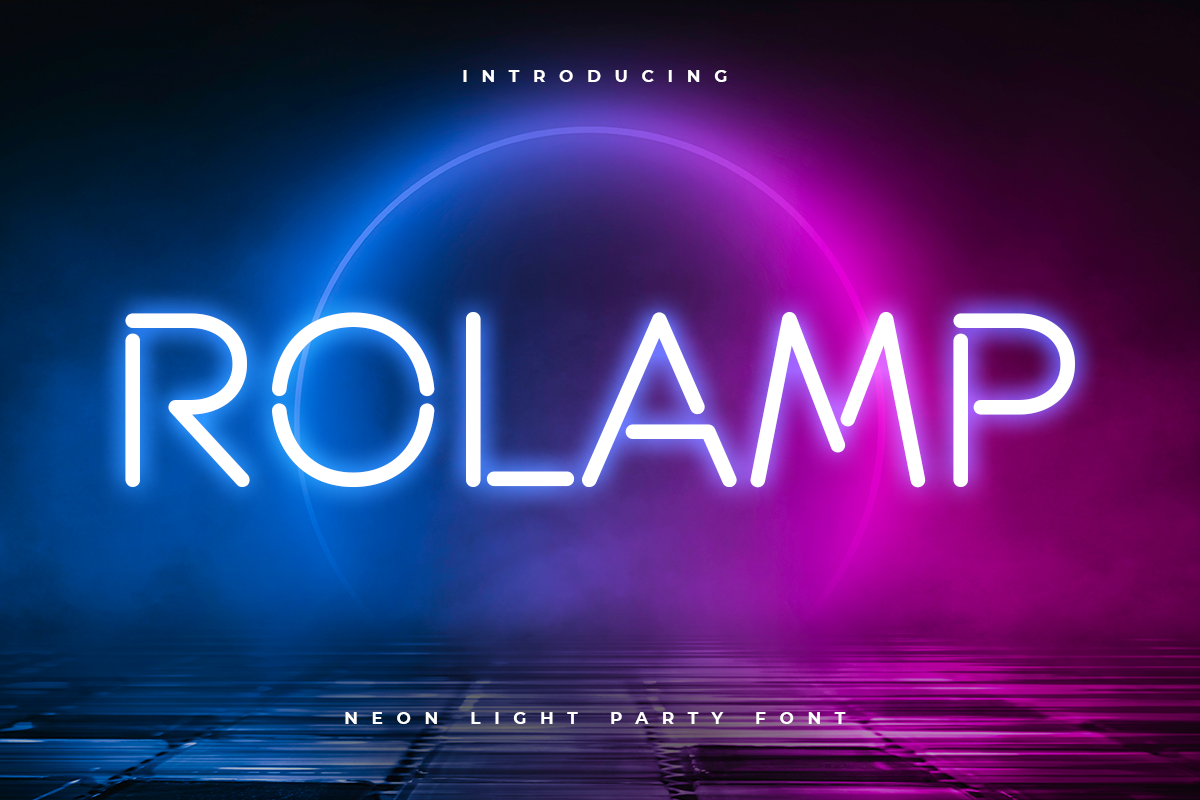
ROLAMP - Neon Light Party Font
Create electrifying party designs with ROLAMP's unique neon-inspired typography that commands attention. ROLAMP Neon Light Font features a distinctive shape that's perfect for parties and any events, making your design look truly unique. This new display font was specially crafted for headlines, titles, and standout typography needs that demand attention. Perfect for adding style and impact to your headline designs, ROLAMP combines a unique aesthetic with modern appeal. Whether you're designing ...